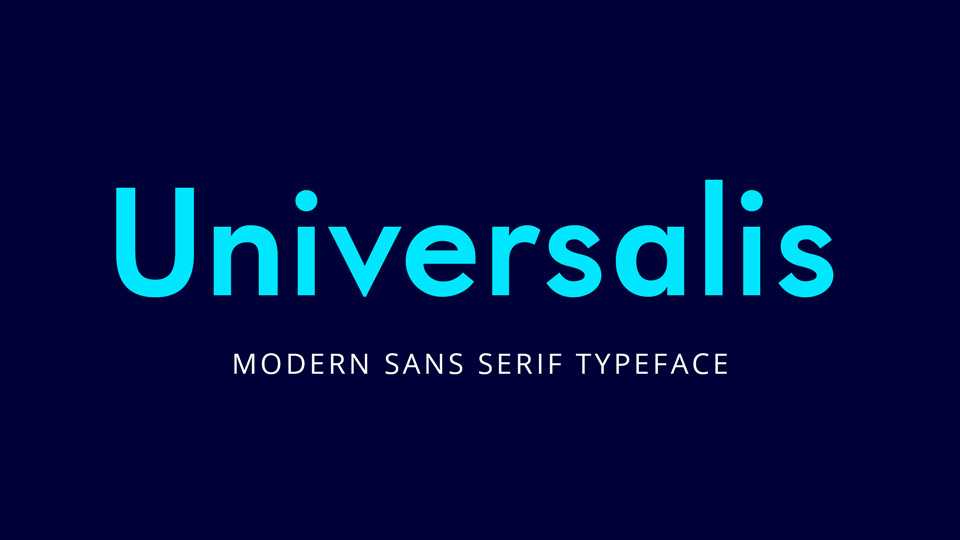
Download Universalis typeface, a modern, very legible sans serif font family in 8 styles that is both sober and elegant. Universalis is an excellent text font that can be used for modern and stylish publications.
Designer: Arkandis Digital Foundry